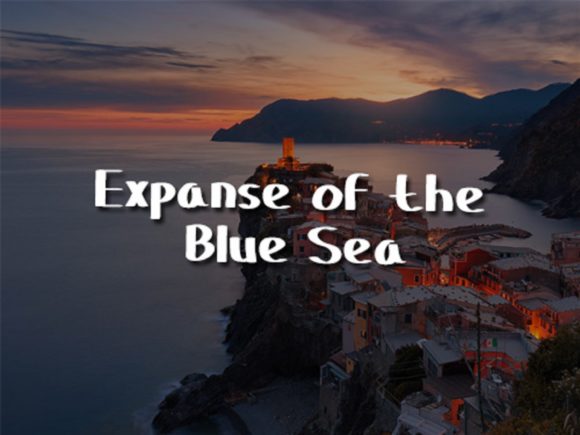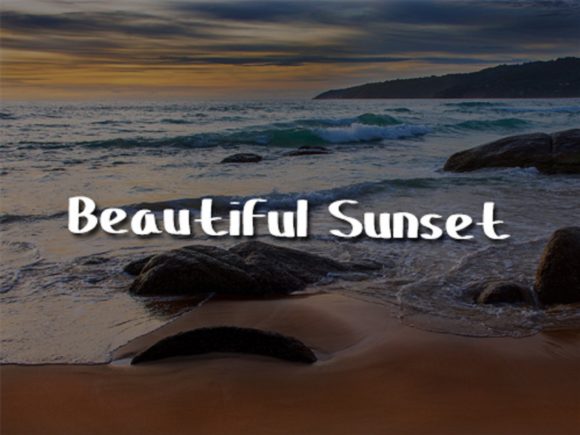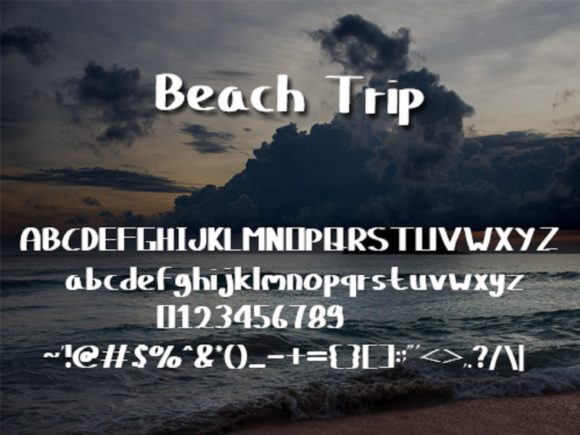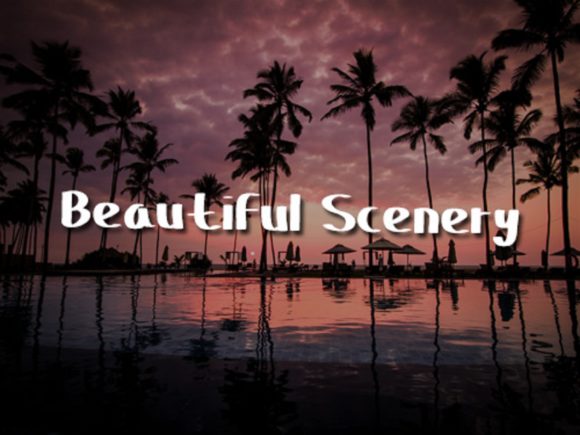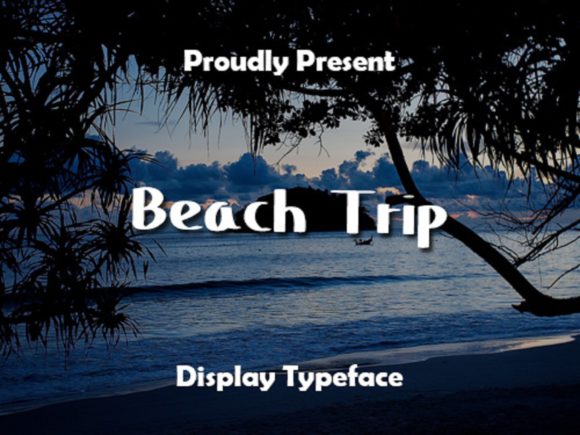
Introducing Beach Trip Font: The Ultimate Display Font for Your Creative Projects
Are you looking for a font that can add a touch of coolness and trendiness to your designs? Look no further than Beach Trip Font! This stunning display font is perfect for creating eye-catching posters, flyers, and prints that will leave a lasting impression on your audience. In this article, we’ll dive into the features and benefits of Beach Trip Font, and explore its endless possibilities for designers and crafters.
What is Beach Trip Font?
Beach Trip Font is a modern and stylish display font that is designed to make your designs stand out. Its unique and trendy look makes it perfect for a wide range of creative projects, from posters and flyers to logos and branding materials. With its clean lines, elegant curves, and bold presence, Beach Trip Font is sure to add a touch of sophistication and style to any design.
Key Features of Beach Trip Font
- Cool and Trendy Design: Beach Trip Font boasts a cool and trendy design that will give your designs a fresh and modern look.
- Display Font: This font is specifically designed as a display font, making it perfect for headlines, titles, and other prominent text elements.
- High-Quality Design: Beach Trip Font is designed with high-quality graphics, ensuring that it looks stunning at any size.
- Easily Customizable: This font is easily customizable, allowing you to adjust the size, color, and style to fit your design needs.
Benefits of Using Beach Trip Font
So why should you choose Beach Trip Font for your designs? Here are just a few benefits of using this amazing font:
- Adds Visual Impact: Beach Trip Font is designed to grab attention and add visual impact to your designs.
- Perfect for Branding: This font is perfect for creating logos, branding materials, and other marketing collateral that requires a bold and stylish look.
- Saves Time: With Beach Trip Font, you can create stunning designs in no time, saving you time and effort.
- Endless Possibilities: This font can be used for a wide range of creative projects, from posters and flyers to social media graphics and more.
Endless Possibilities with Beach Trip Font
So what can you create with Beach Trip Font? The possibilities are endless! Here are a few ideas to get you started:
- Posters and Flyers: Use Beach Trip Font to create eye-catching posters and flyers for events, promotions, and more.
- Logos and Branding: Create a bold and stylish logo for your business or brand using Beach Trip Font.
- Social Media Graphics: Use this font to create stunning social media graphics, including Facebook posts, Instagram stories, and more.
- Print Materials: Beach Trip Font is perfect for creating print materials, such as brochures, business cards, and more.
Tips for Using Beach Trip Font
Here are a few tips for getting the most out of Beach Trip Font:
- Experiment with Sizes: Try out different sizes to see how Beach Trip Font looks at various scales.
- Play with Colors: Experiment with different colors to find the perfect match for your design.
- Pair with Other Fonts: Try pairing Beach Trip Font with other fonts to create a unique and interesting look.
In conclusion, Beach Trip Font is a cool and trendy display font that is perfect for designers and crafters looking to add a touch of style and sophistication to their designs. With its unique design, high-quality graphics, and endless possibilities, Beach Trip Font is a must-have font for any creative project. So why wait? Download Beach Trip Font today and start creating stunning designs that will leave a lasting impression on your audience!